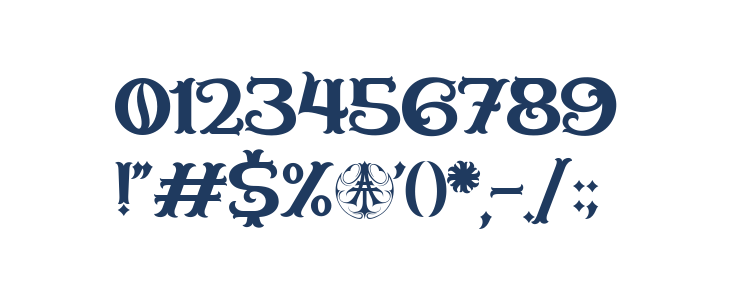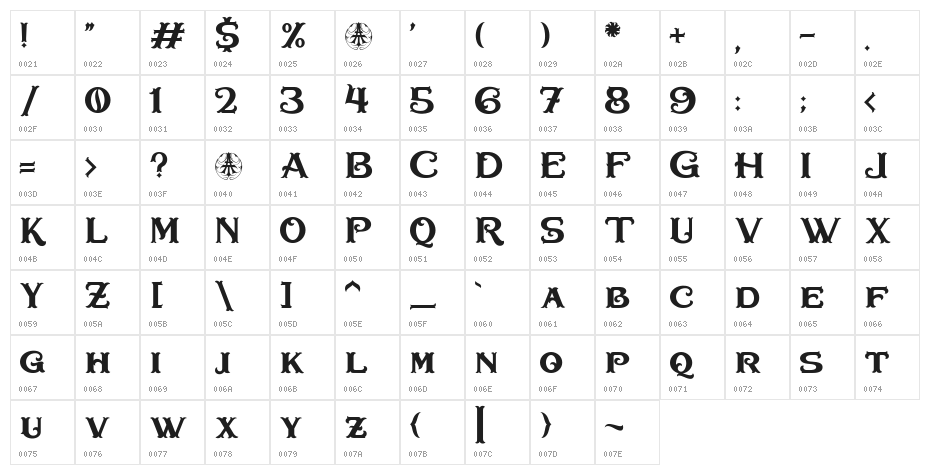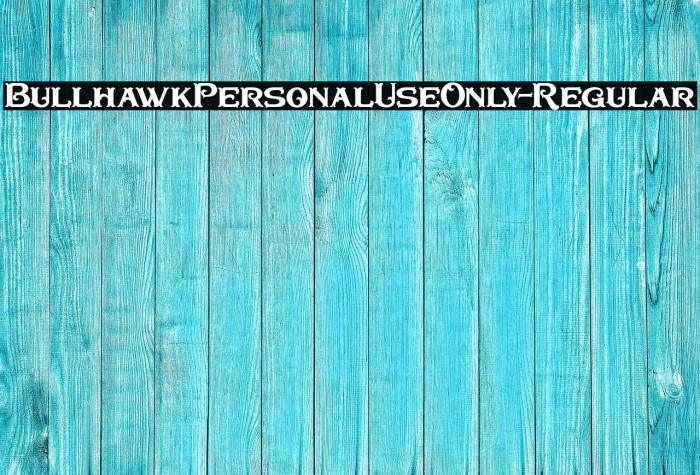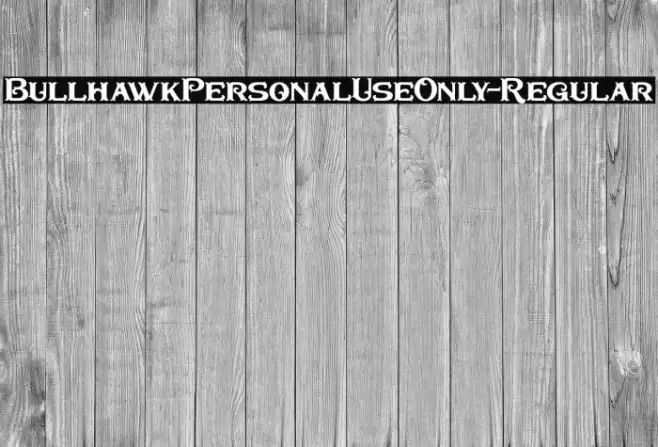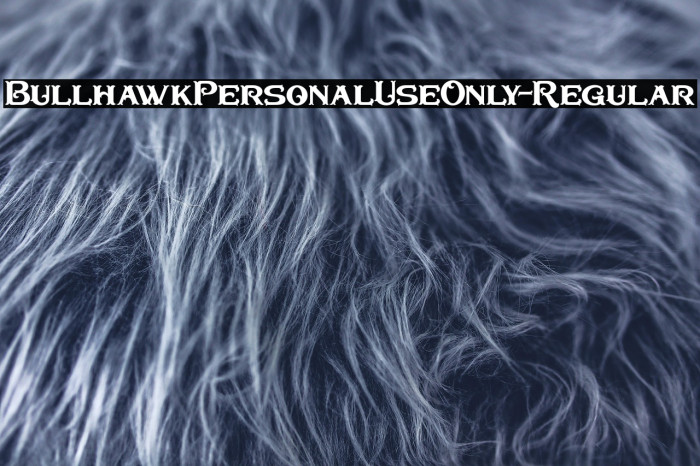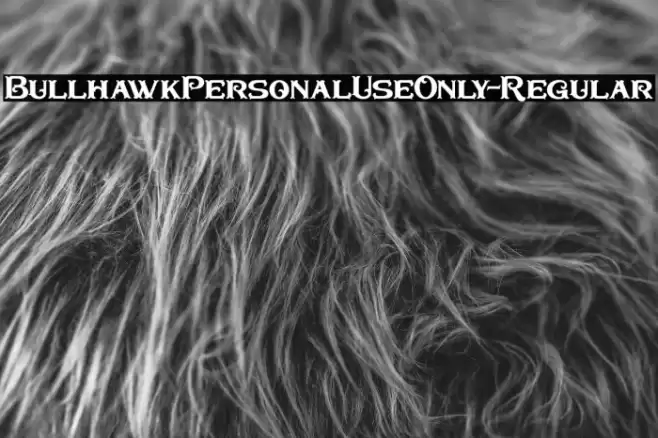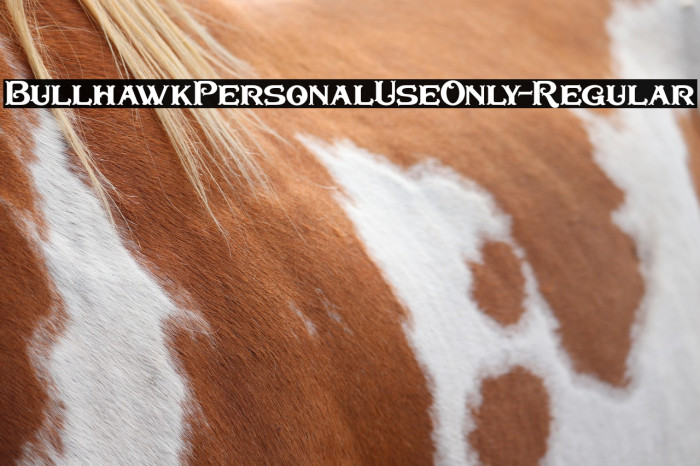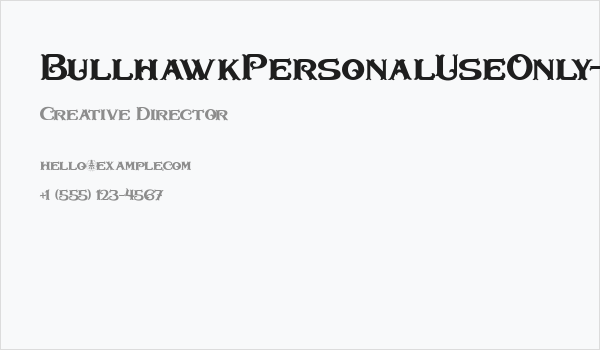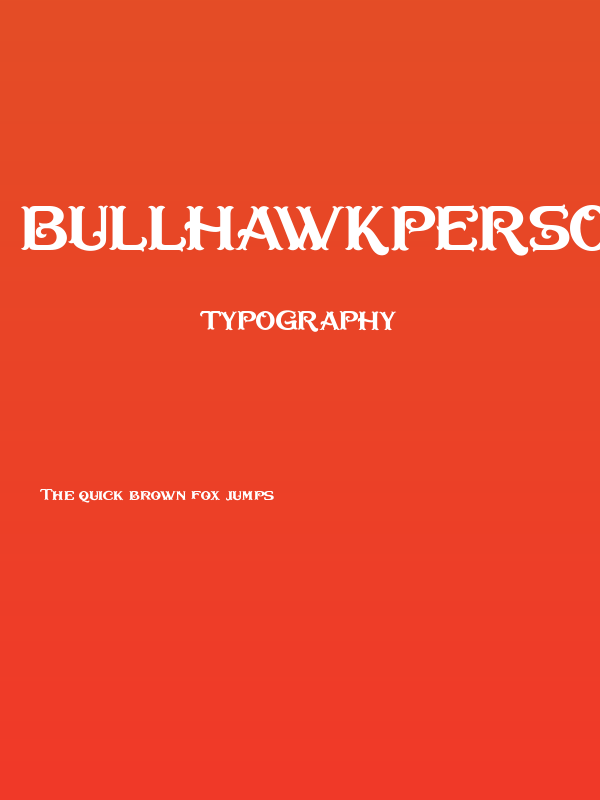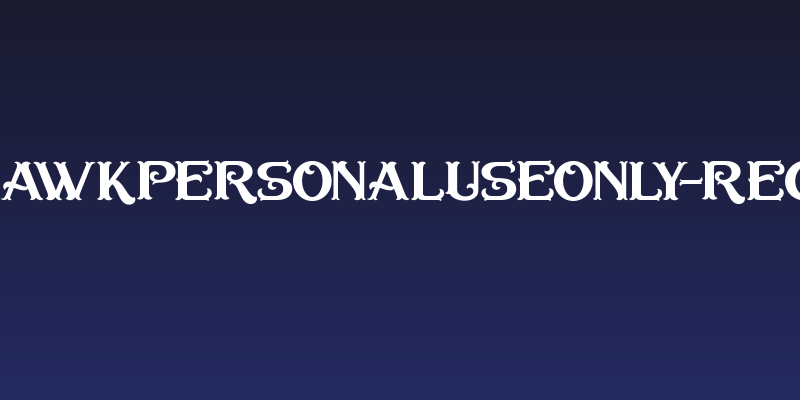
BullhawkPersonalUseOnly-Regular Font
BullhawkPersonalUseOnly-Regular Description
This font features a bold and decorative style with intricate details that give it a unique and artistic flair. The uppercase and lowercase letters are designed with ornate serifs and flourishes, creating a sense of elegance and sophistication. The numbers and special characters maintain the same decorative elements, ensuring consistency across all glyphs. The overall appearance is both striking and memorable, making it suitable for projects that require a touch of drama and creativity.